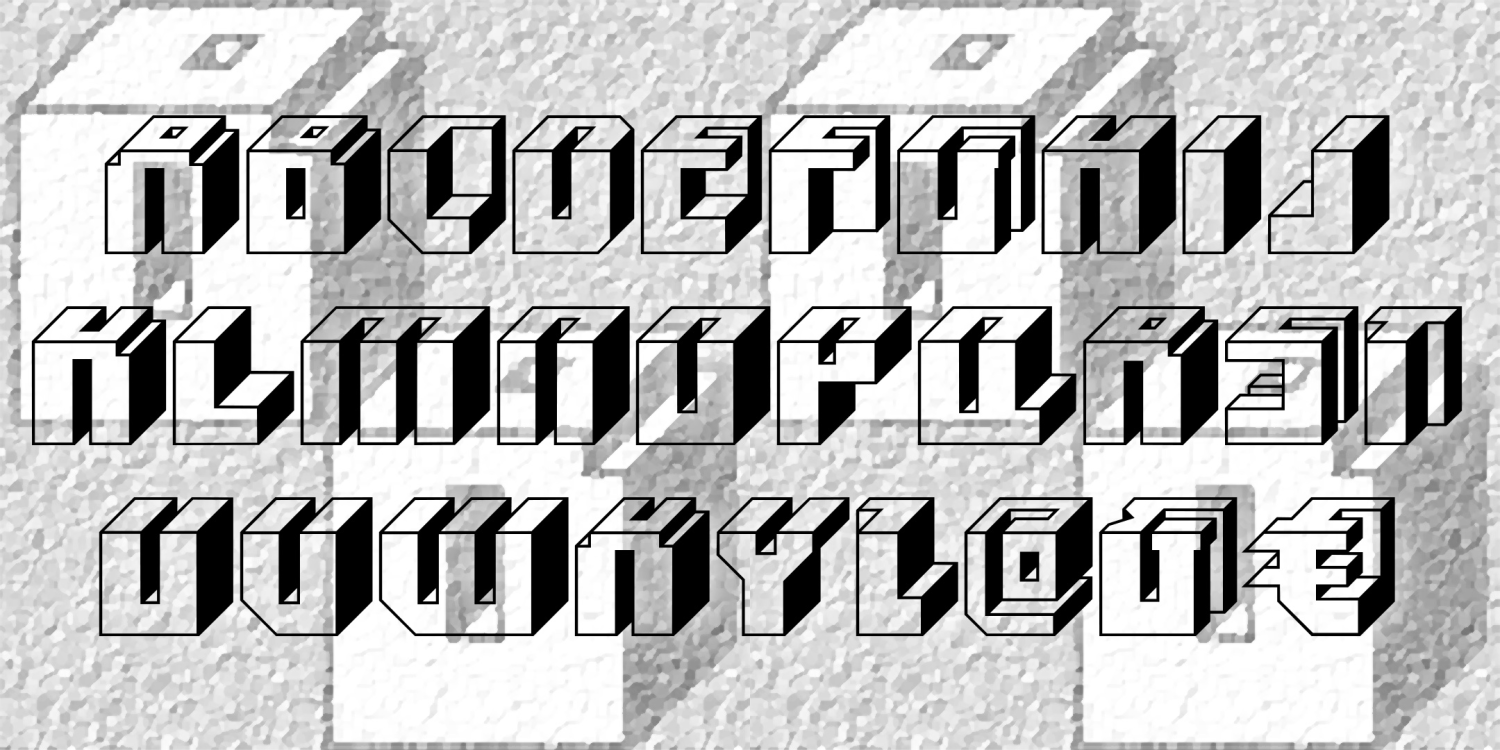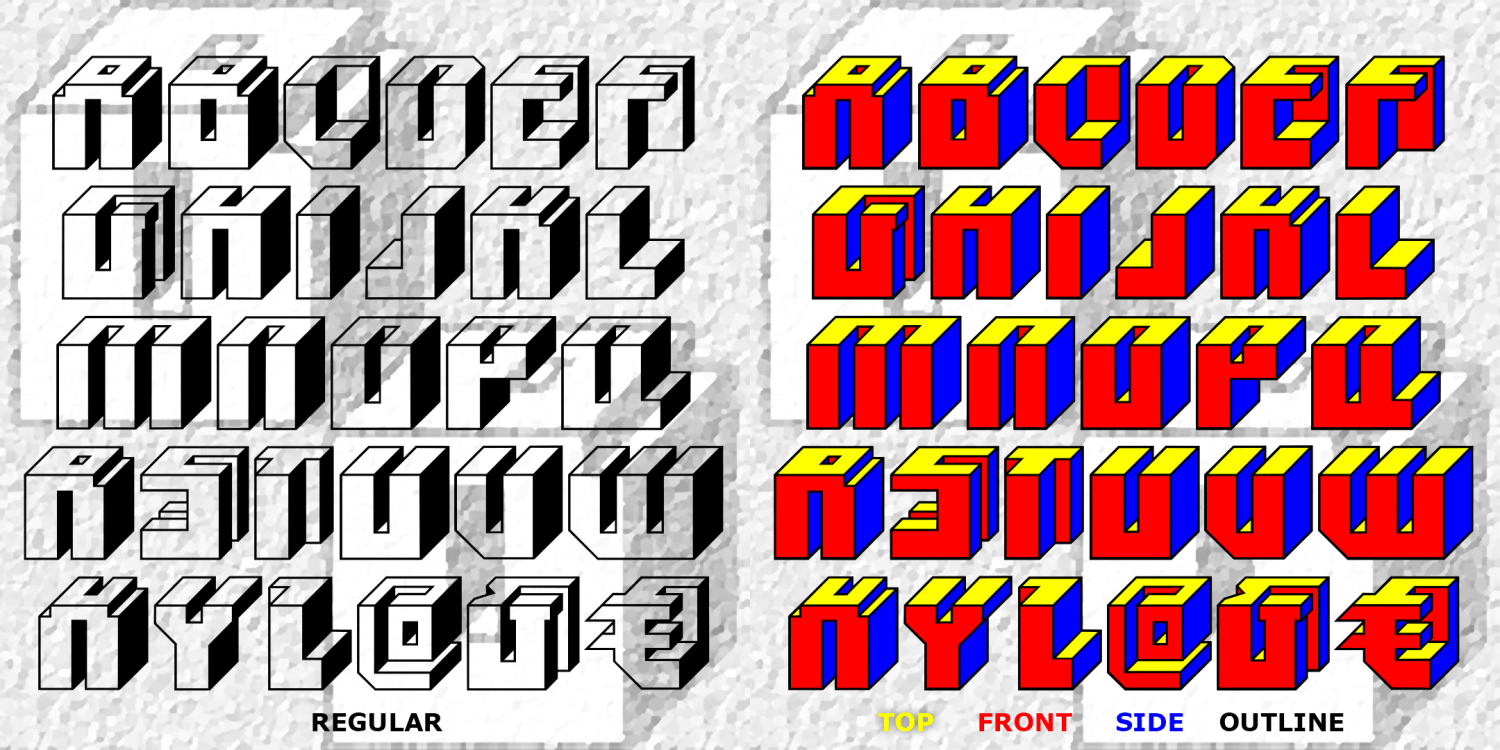
Blocked
BLOCKED was inspired by a “lost” font from 1974. The original, called “Block Up,” was designed by Sally Ann Grover and was issued by Letraset. Block Up is one of countless fonts that didn’t make the technological transition from transfer letters to digital. My digital version was constructed point by point, so it’s very clean. I’ve kept all the available characters (except the 4) and expanded it with more punctuation and international characters.
The Regular above; that’s what the original looked like. I’ve also created a series of four component fonts which can be layered to create the FRONT planes, TOP planes, SIDE planes, and outlines as in the sample below. (Only works in an application that allows layering text elements.)